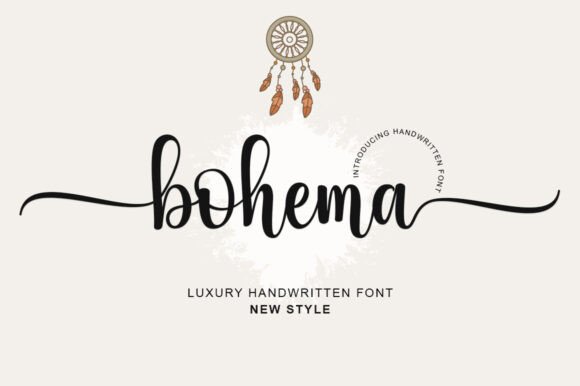
Unveiling Bohema: The Cozy Handwritten Font That Steals Hearts
I’ll never forget the moment I stumbled upon Bohema, a captivatingly flowing handwritten font that instantly transported me to a world of cozy charm. I was working on a project for a client who wanted a romantic and elegant vibe, but I was struggling to find the right font to convey that feeling. That’s when I discovered Bohema, and it was love at first sight! 💕
With its delightful cursive style, Bohema boasts a versatile beauty that amplifies the appeal of any project. It’s the perfect blend of expressively cheerful typographic flair and cozy elegance. In this article, I’ll share my honest review of Bohema, provide a practical guide on how to use it, and explore similar fonts that you might love.
My Honest Review of Bohema
What I Love About Bohema ✨
- ✅ Its unique, flowing script style adds a touch of romance and whimsy to any design
- ✅ The font is incredibly versatile and works well for a variety of projects, from wedding invitations to branding and packaging
- ✅ Bohema’s OpenType features and glyphs make it easy to customize and add personal touches to your designs
- ✅ The font is easy to read and works well in both digital and print formats
- ⚠️ Some users may find the font a bit too ornate or over-the-top for certain projects
- ⚠️ Bohema may not work well for very long blocks of text or body copy, as it’s best suited for headlines and titles
The Story Behind Bohema: A Designer Inspiration
Bohema was designed by a talented typographer who wanted to create a font that captured the essence of a cozy, bohemian lifestyle. Inspired by vintage scripts and handwritten letters, Bohema is a modern take on classic typography. The designer’s goal was to create a font that would add a touch of warmth and personality to any design, and I think they’ve succeeded beautifully! 😊
Q: What is Bohema’s personality?
A: Bohema has a cozy, romantic, and whimsical personality, making it perfect for designs that require a touch of elegance and charm.
Q: Is Bohema easy to read?
A: Yes, Bohema is a highly legible font that works well in both digital and print formats.
Q: Can I use Bohema’s OpenType features and glyphs?
A: Yes, Bohema has a range of OpenType features and glyphs that can be accessed using compatible software, such as Adobe Photoshop and Illustrator.